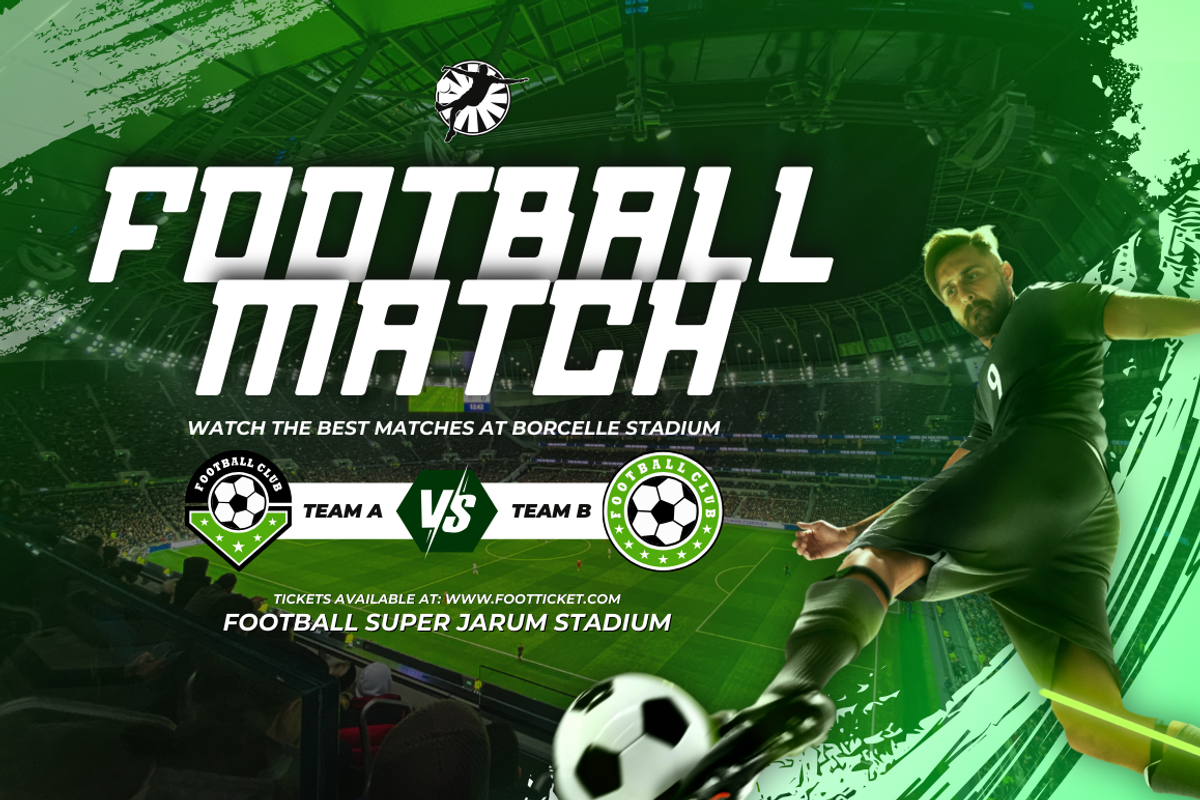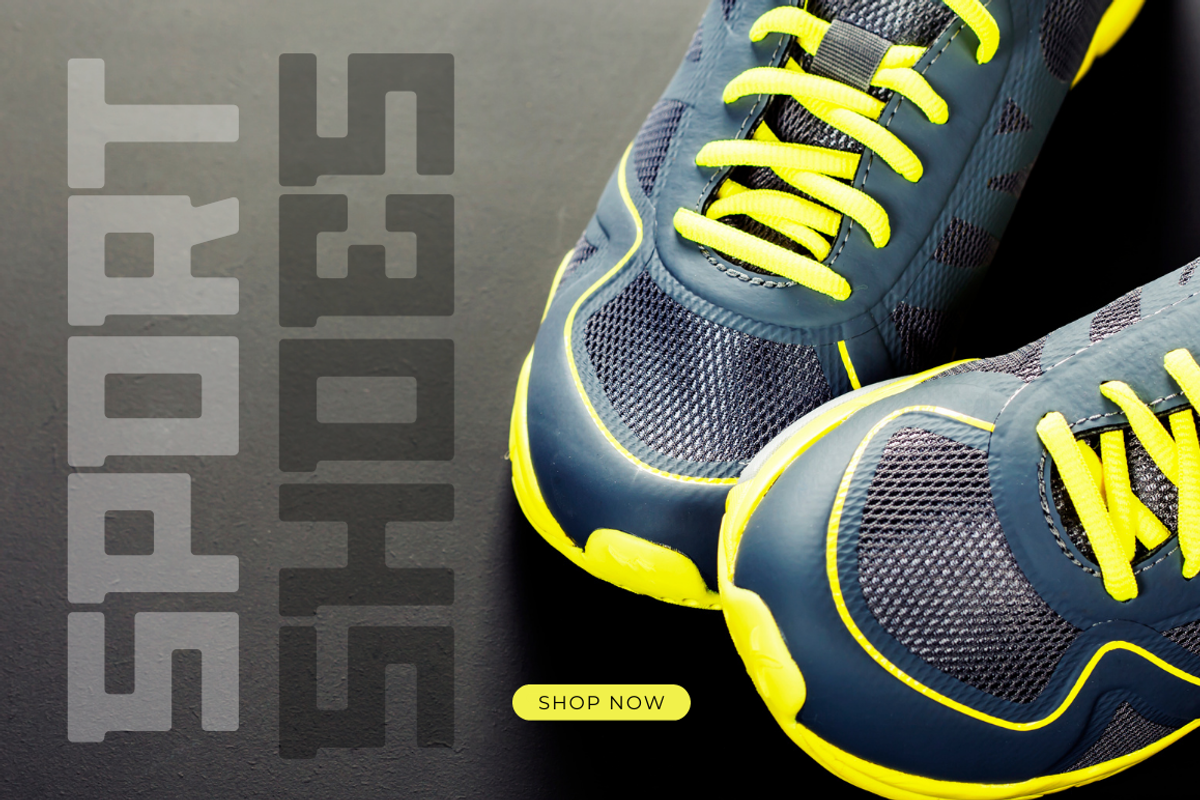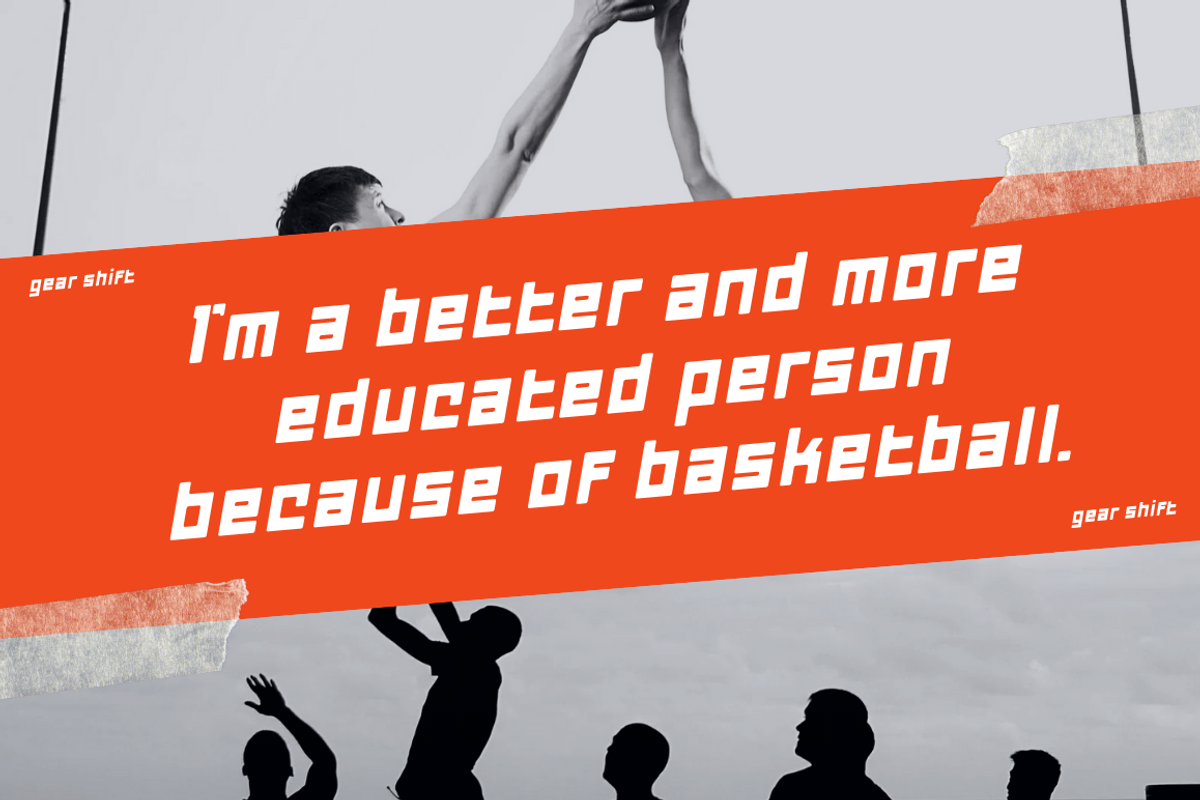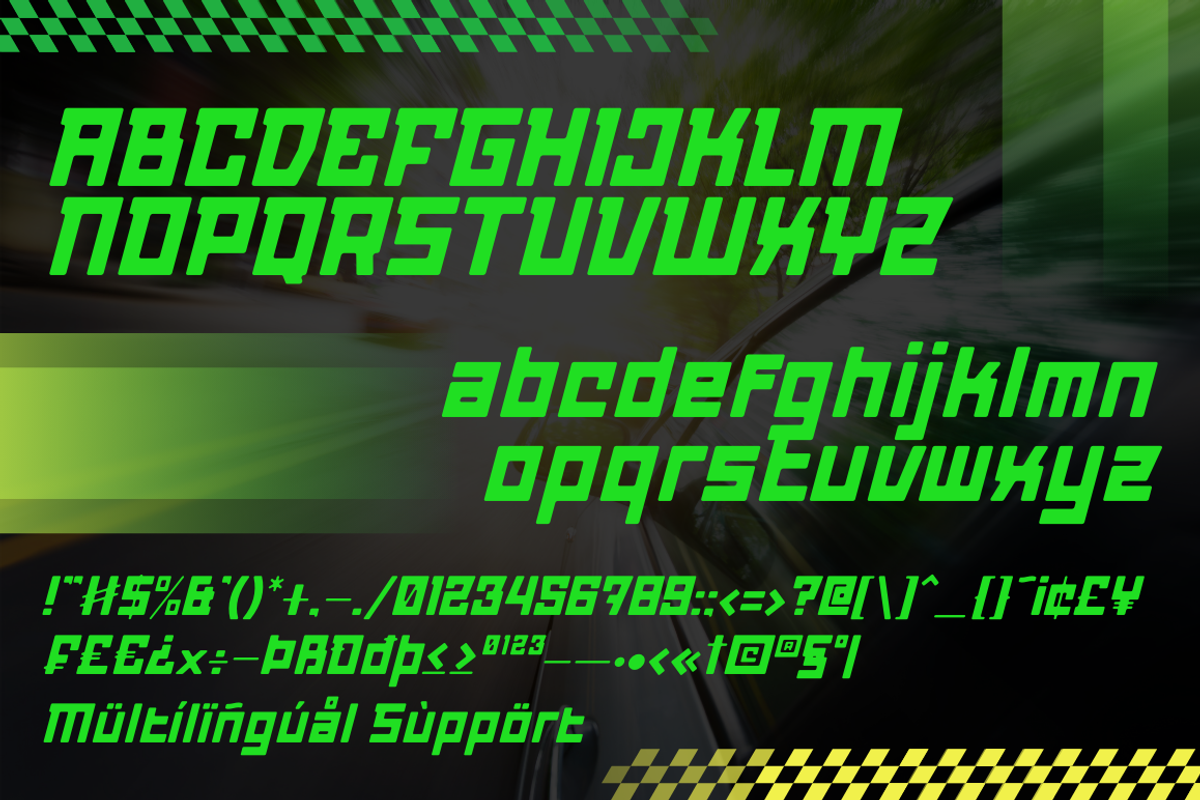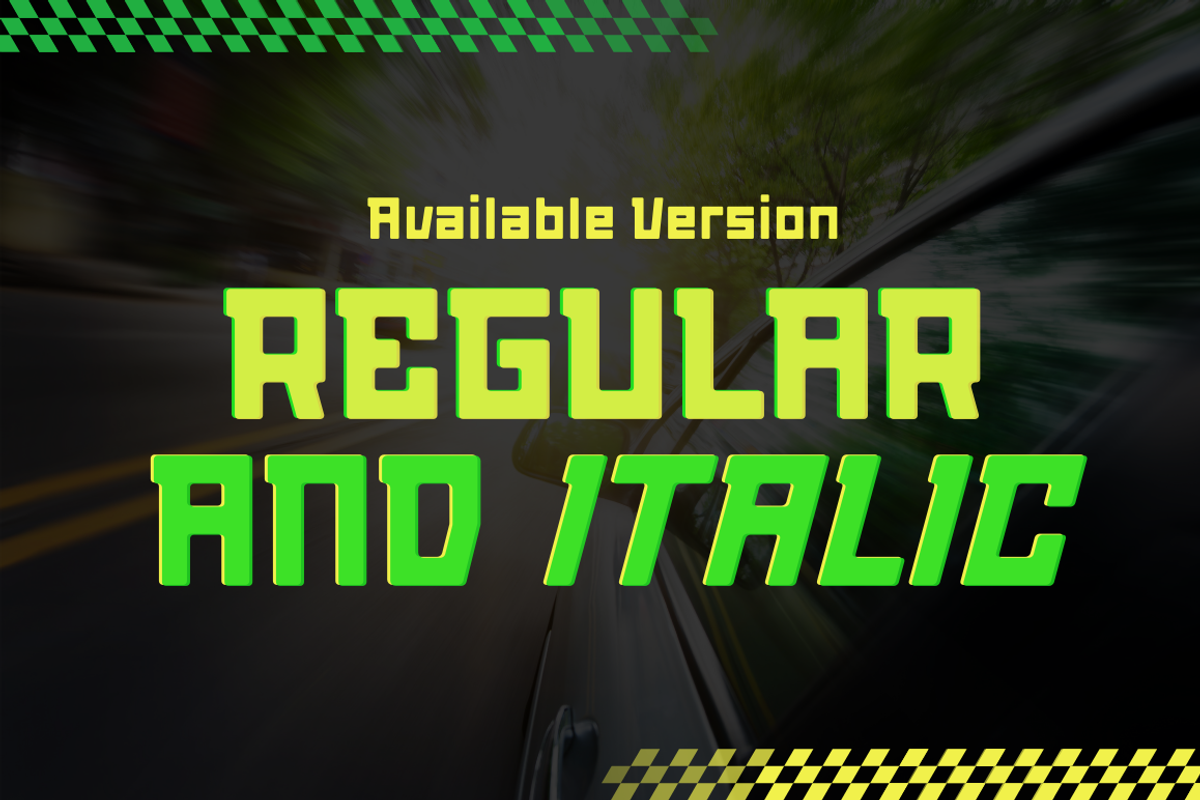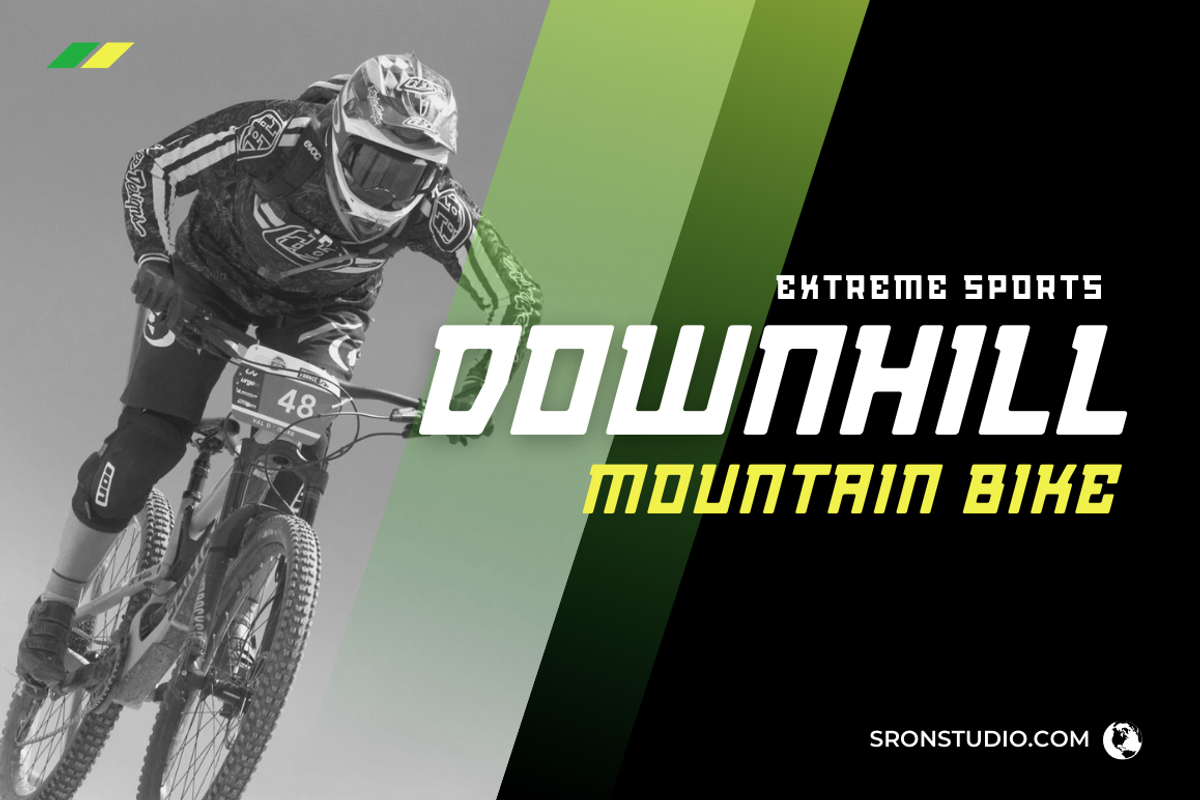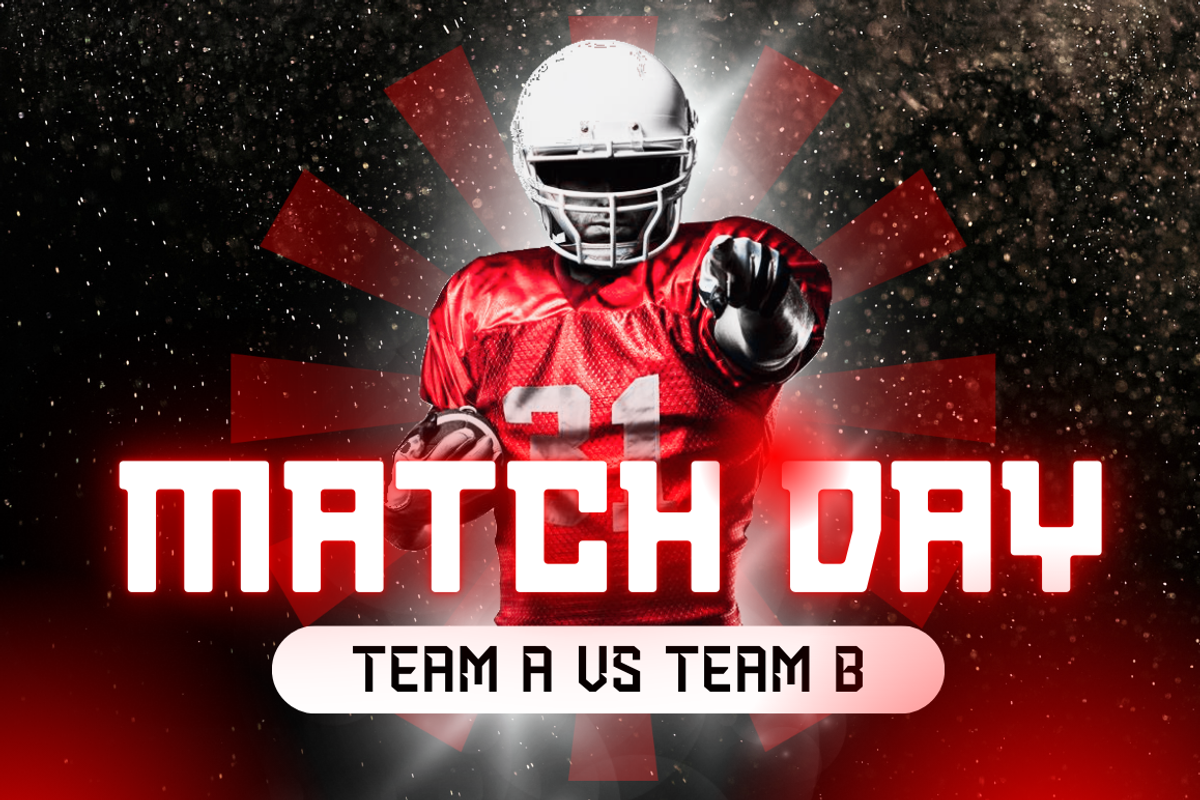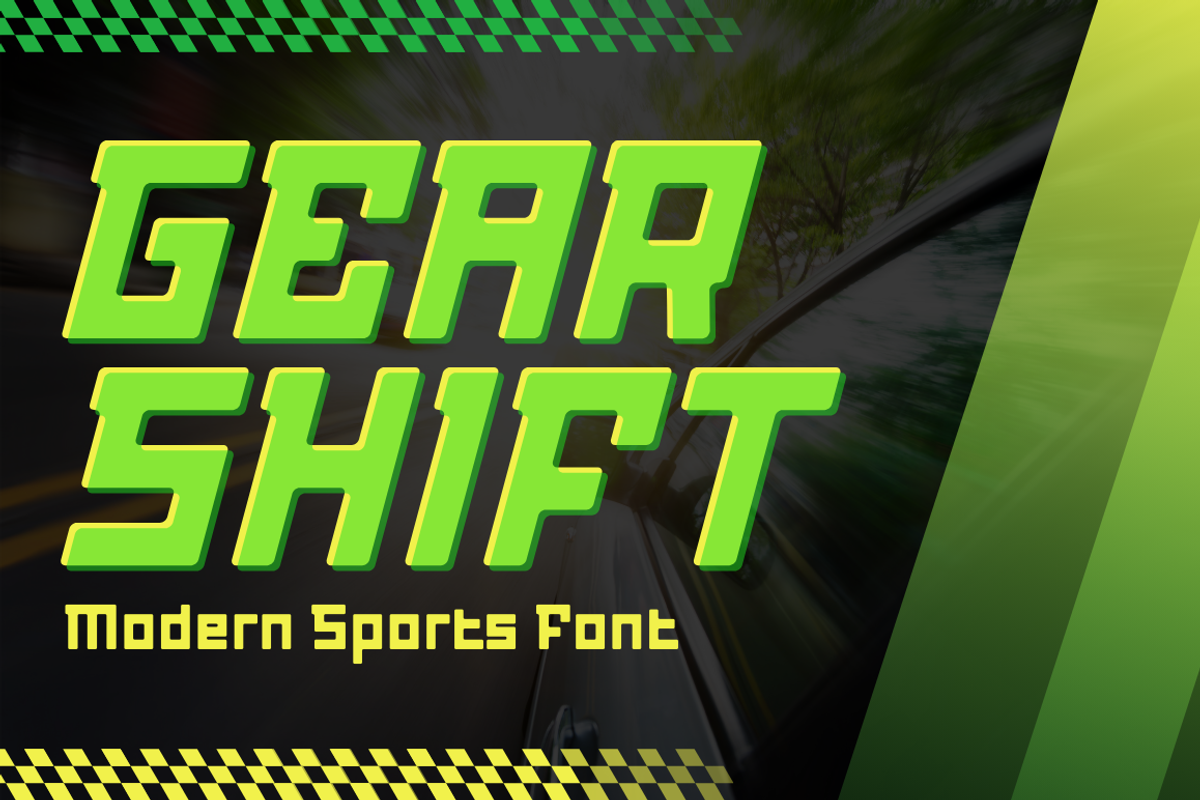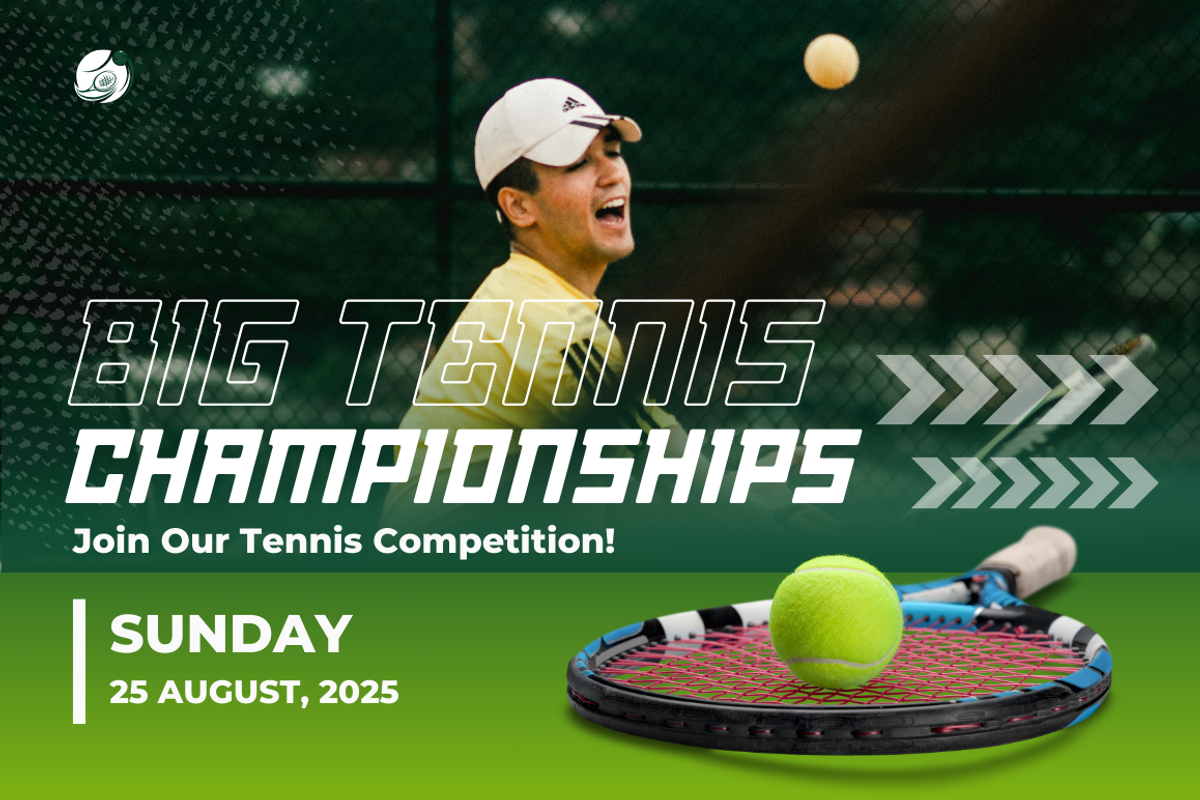
Gear Shift - Modern Sports Font
Gear Shift is a bold and dynamic sports font designed to bring energy and motion to your designs. With strong shapes and a competitive spirit, this typeface is perfect for team sports logos, posters, athletic branding, jerseys, and more. Available in two styles — Regular and Italic — Gear Shift delivers a powerful, fast-paced vibe that’s ready for any high-impact visual.
- Two styles: Regular & Italic
- Uppercase & lowercase characters
- Numerals & punctuation